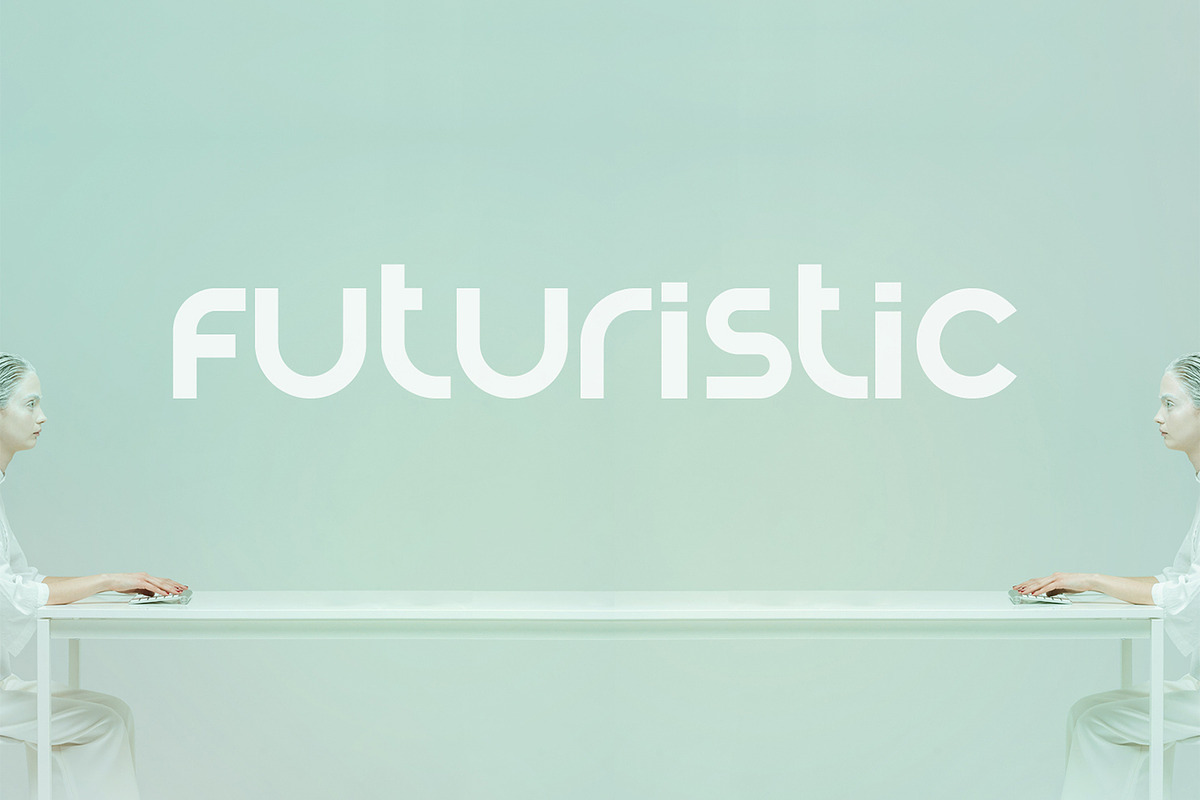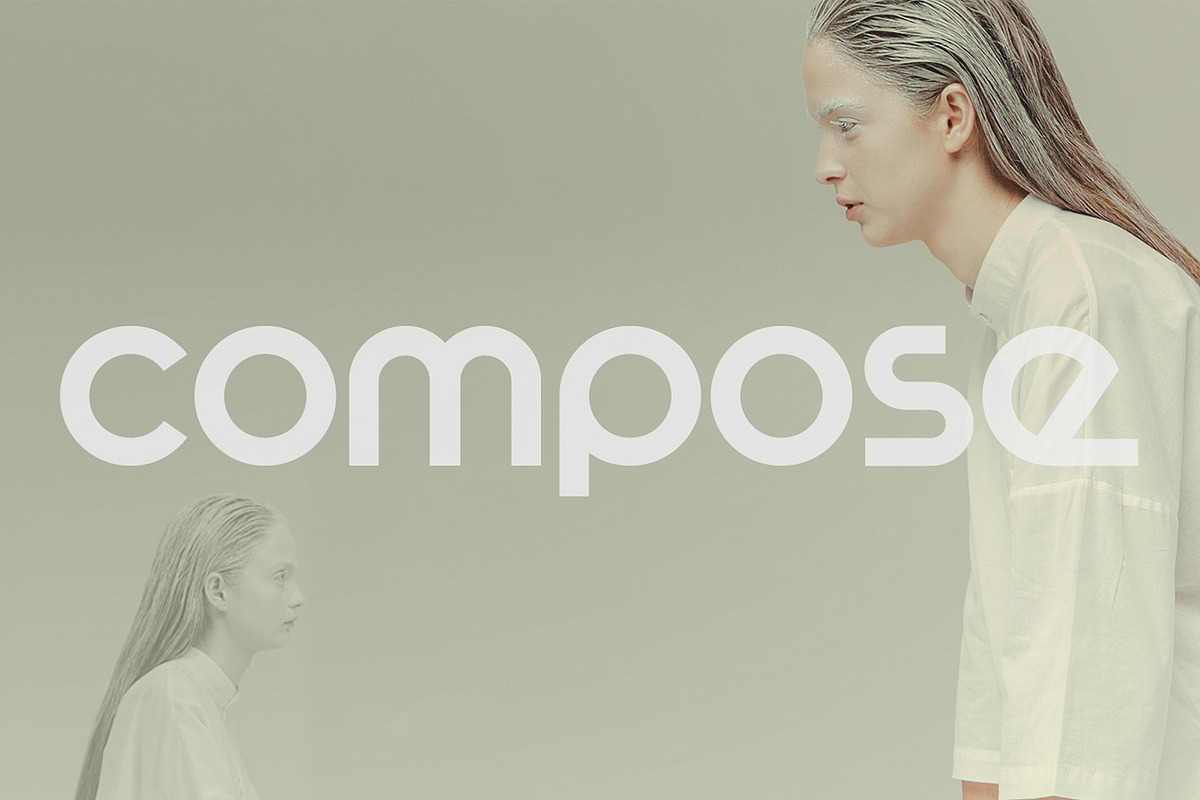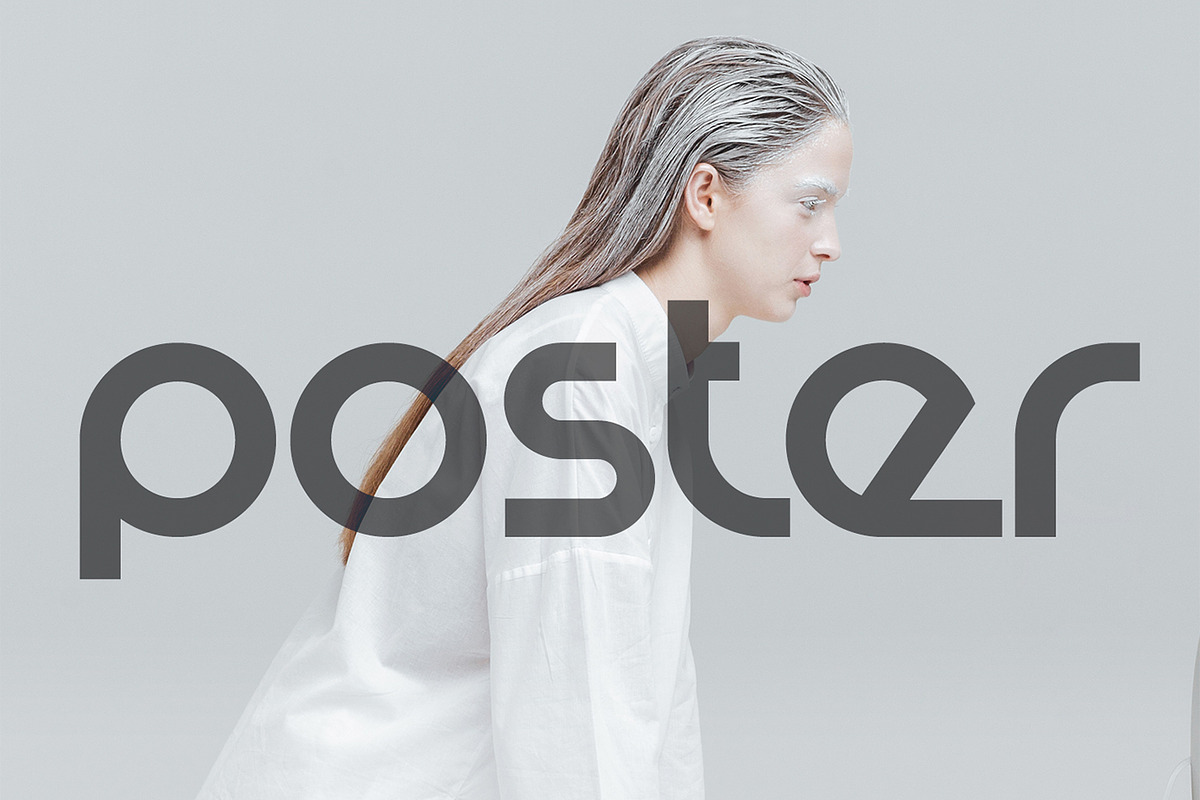
Orborn Font
Orborn is a round geometric experimental font. It has a pronounced futuristic vision and could be called a modern font, even though suits in a retro ambient.
It is perfectly suited for a wide variety of projects, such as signature, stationery, logo, wedding, typography quotes, magazine or book covers, website headers, branding, packaging design, and more.
This font family includes all Latin characters (including accents), numbers, special characters, and punctuation.
• All Caps & Small Caps
• Ligatures
• Symbols & Punctuation
• A total of 174 Glyphs